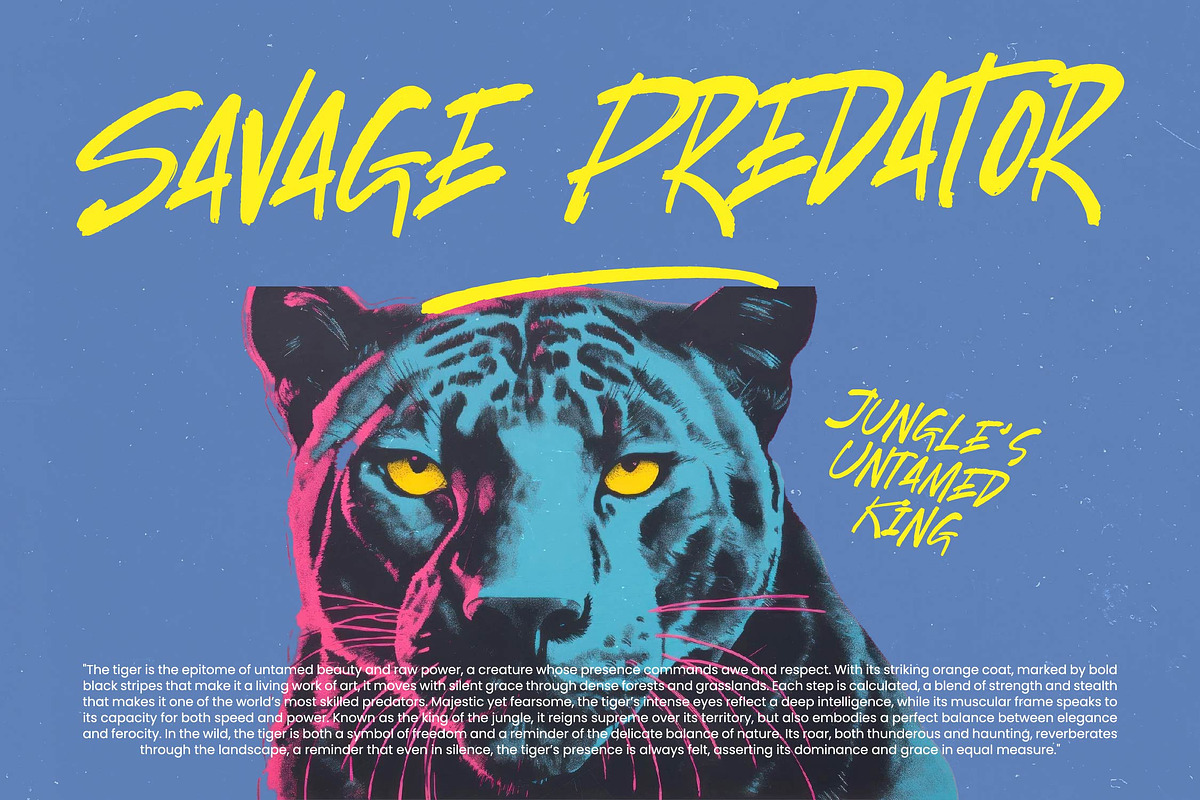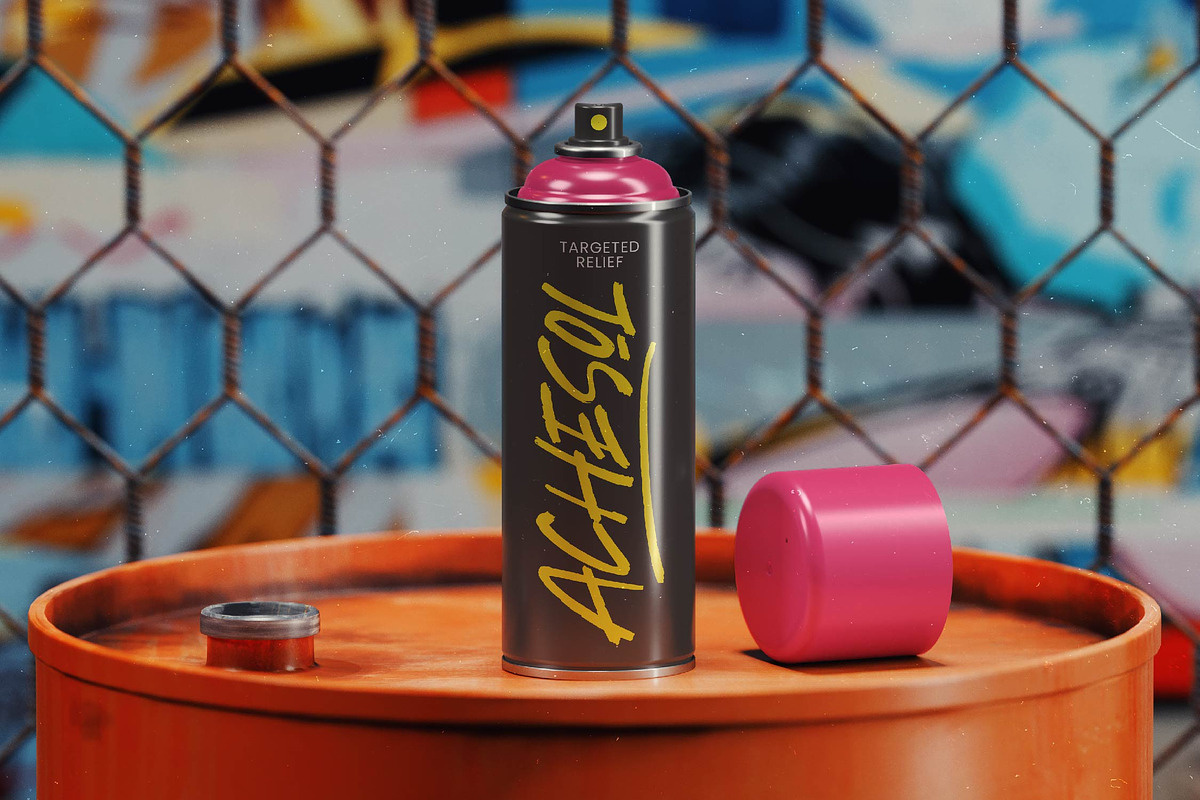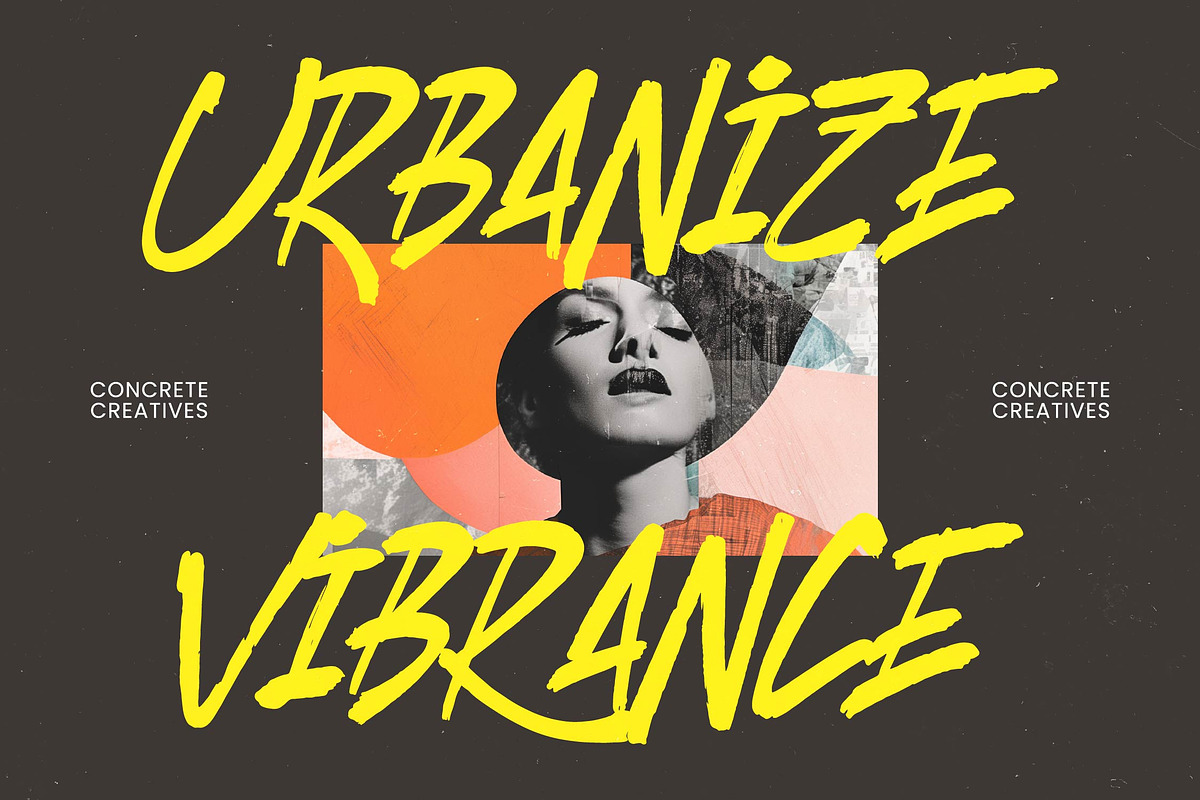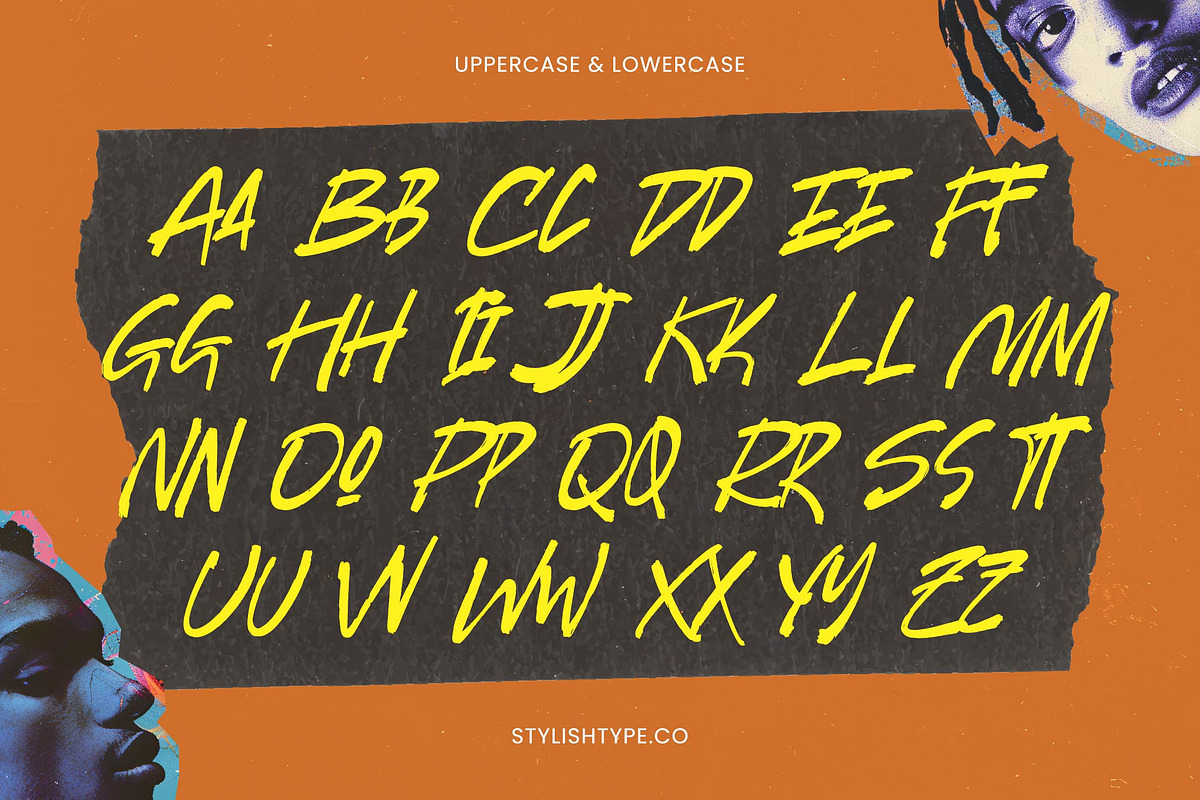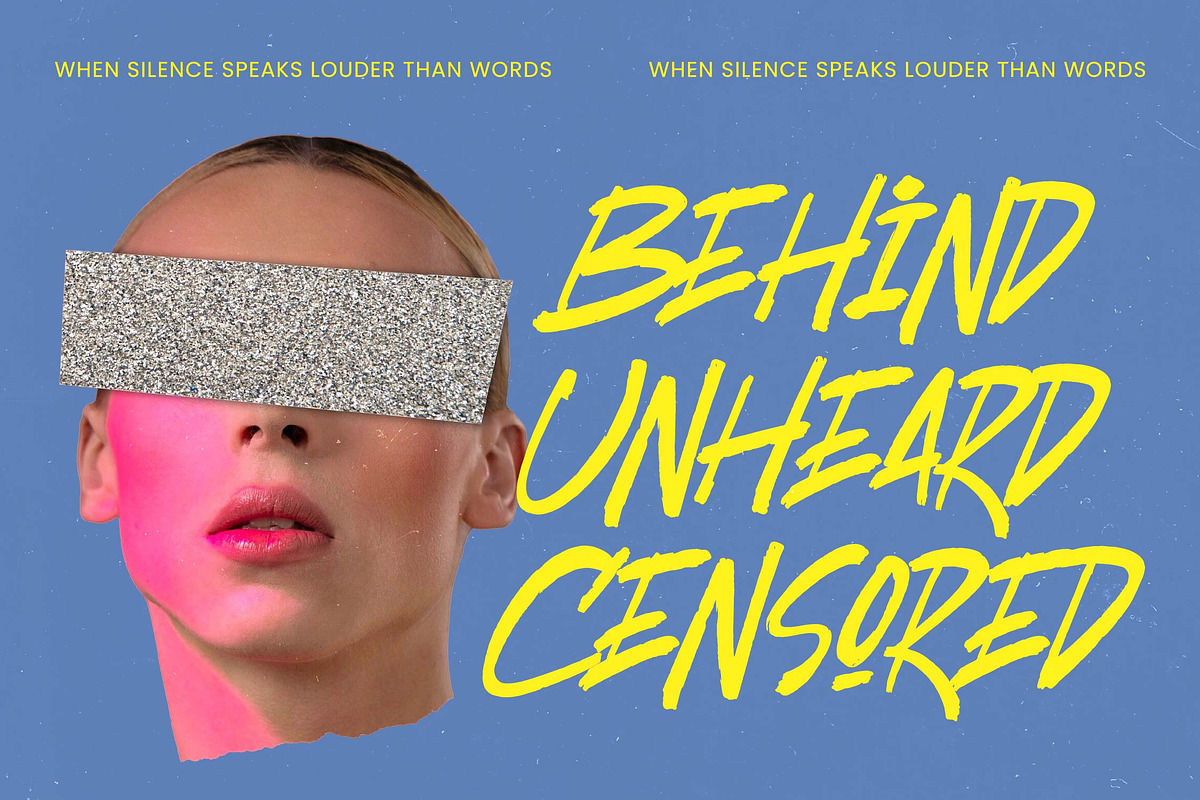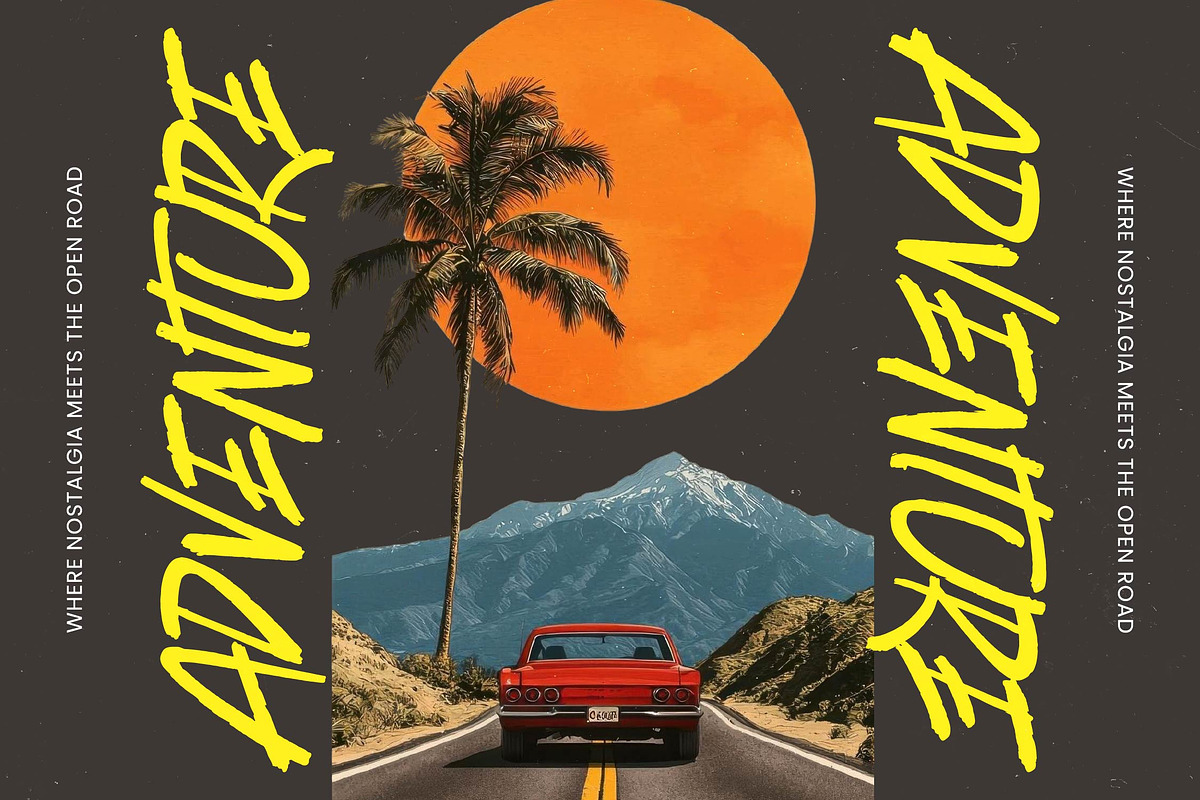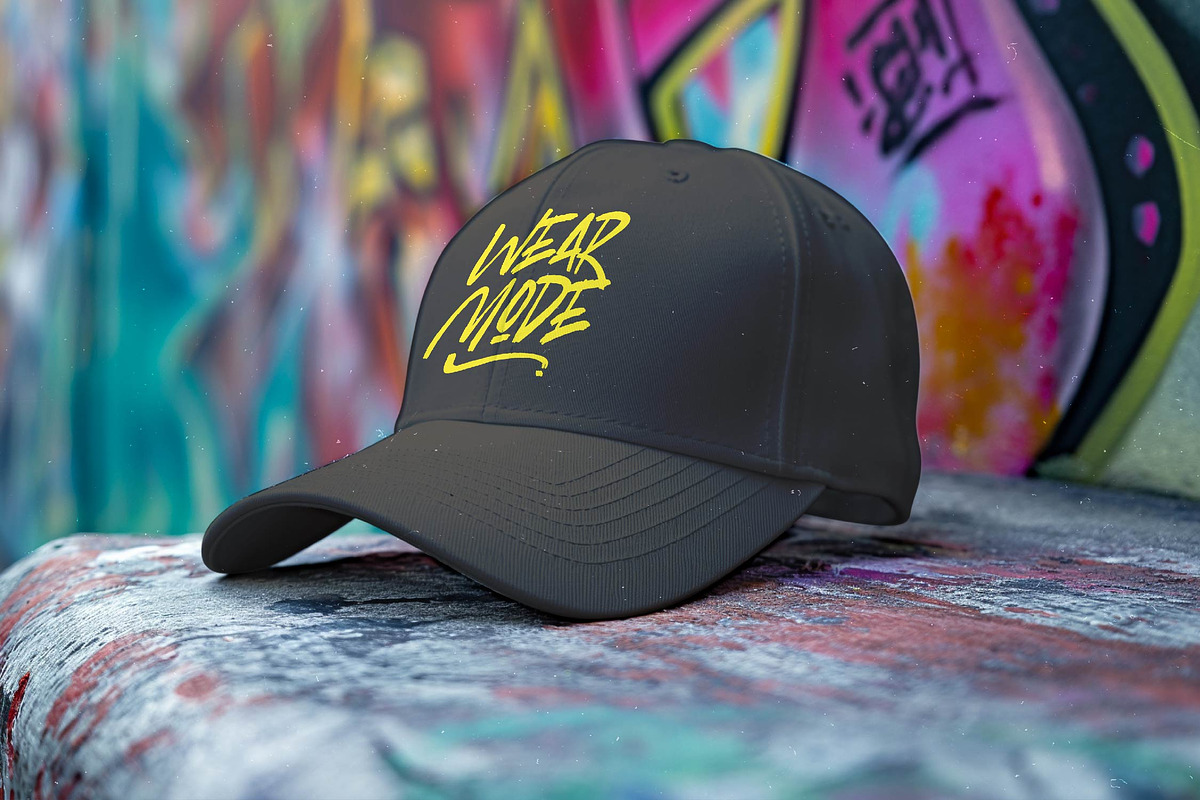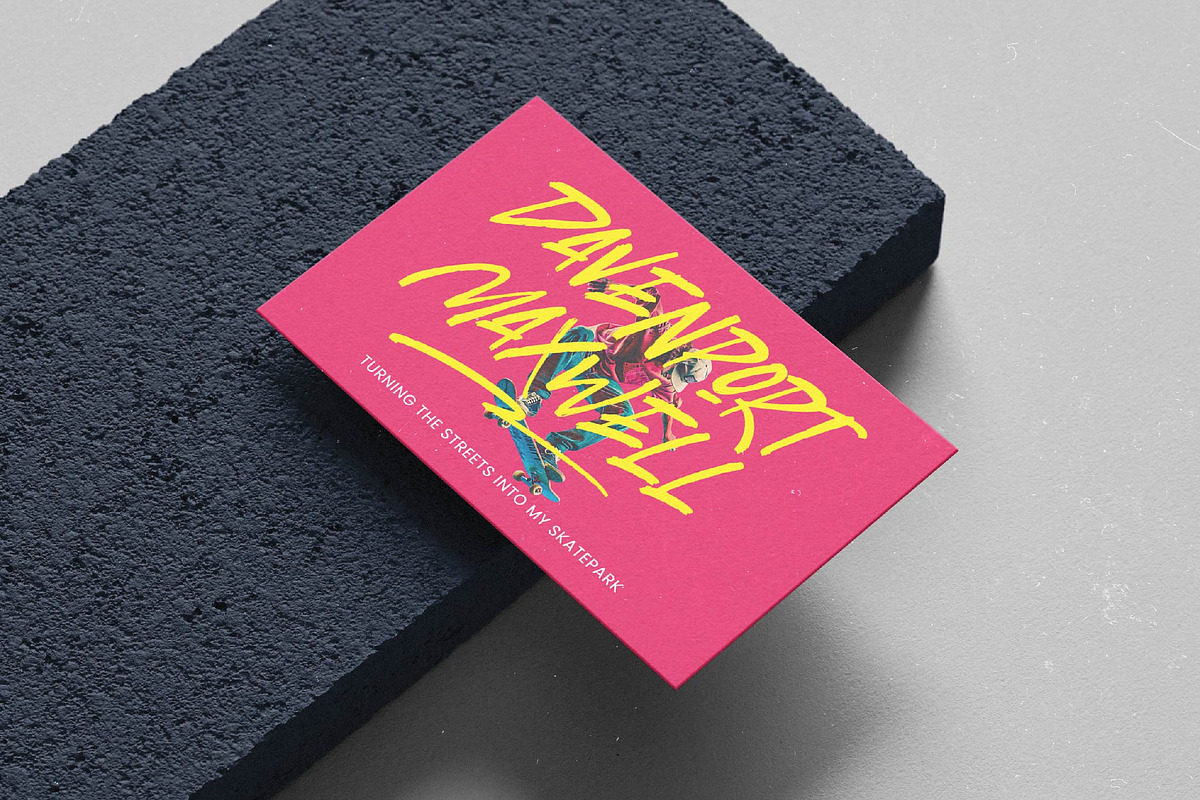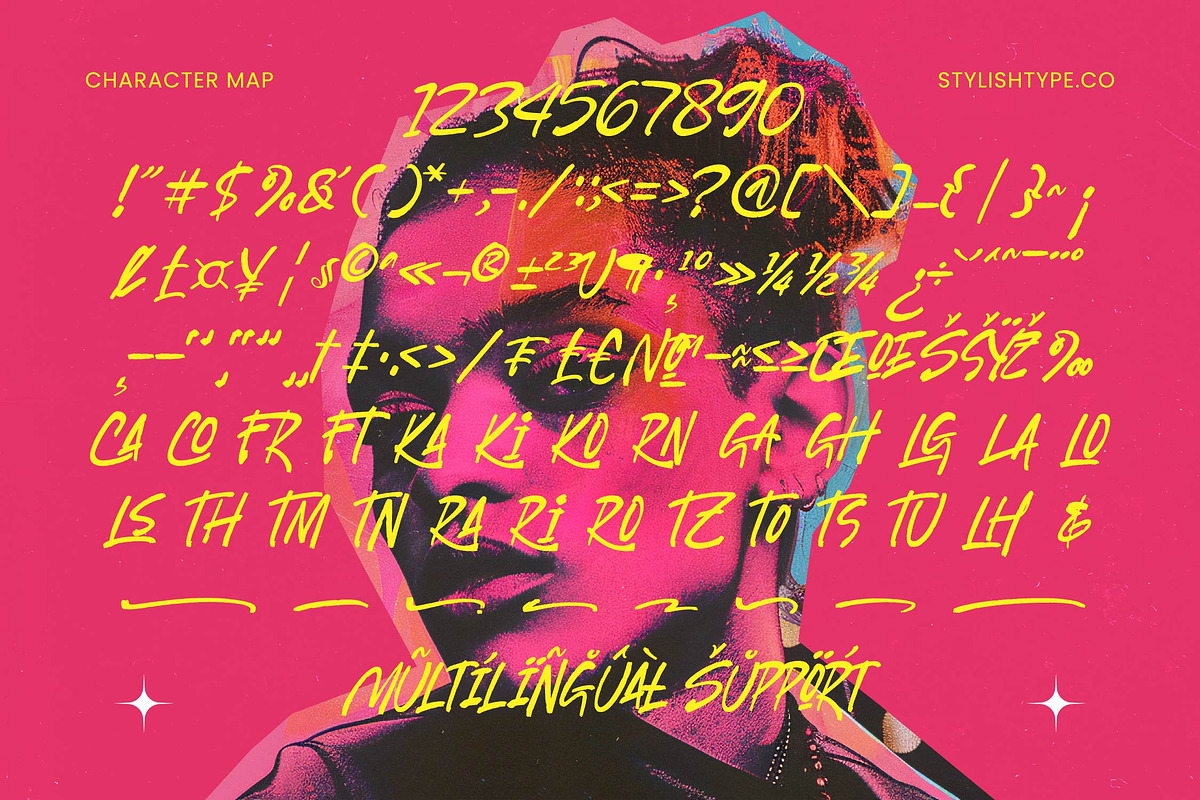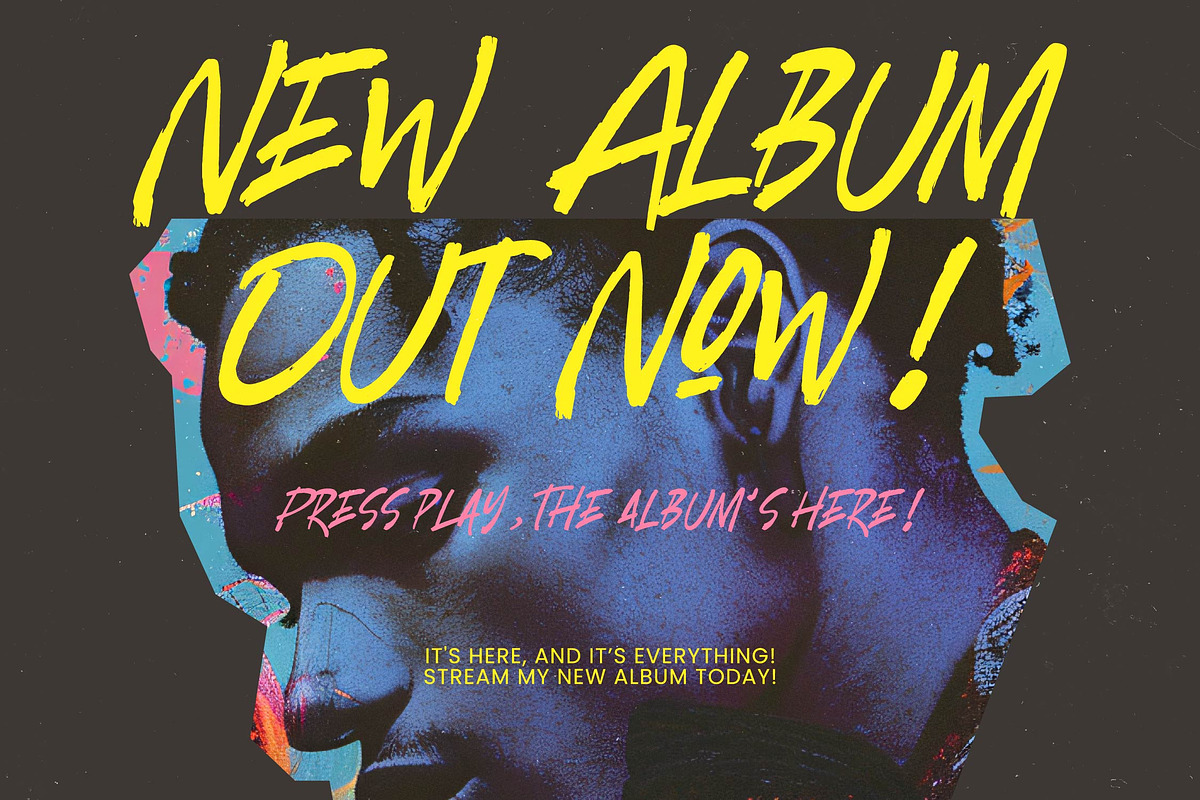
Bulgeto Eastern Display Brush Font
Bulgeto Eastern - Display Brush Font , Command attention with raw energy and a bold presence that defines modern design. Bulgeto Eastern - Display Brush Font is a high-impact, expressive typeface crafted for brands that require an authentic, urban street art aesthetic. Its textured edges and dynamic movement capture the essence of contemporary brush strokes, offering a hand-crafted feel that is both aggressive and sophisticated. By utilizing Bulgeto Eastern - Display Brush Font, designers can instantly inject a sense of raw energy and personality into any visual identity.
Elevate your creative output with professional-grade versatility and custom features. This typeface is engineered with a comprehensive set of 25 ligatures and custom swashes, allowing for the creation of unique, customized typography that mimics real-life hand-lettering. Bulgeto Eastern - Display Brush Font balances its artistic flair with technical precision, ensuring that every character remains legible while maintaining its stylized edge. This combination of gritty texture and functional design makes it an essential asset for modern graphic designers.
Bridge the gap between local grit and global reach with a typeface built for the world. With its extensive multilingual support, Bulgeto Eastern - Display Brush Font adapts seamlessly across global markets, making it incredibly versatile for international projects. This broad character set ensures that your brand voice remains consistent across various regions, providing unrivaled flexibility for global advertising campaigns and digital content. Incorporating Bulgeto Eastern - Display Brush Font into your toolkit guarantees a universal design asset that resonates worldwide.
Redefine the visual landscape of your next high-visibility project with a font designed to stand out. Perfectly suited for luxury branding, streetwear apparel, and edgy packaging design, Bulgeto Eastern - Display Brush Font excels in environments that demand a punchy, unforgettable look. It is the ideal choice for music posters, action sports media, and editorial headers that require maximum visual impact. Whether you are developing promotional graphics or social media content, Bulgeto Eastern - Display Brush Font delivers the professional edge needed to cut through the noise.